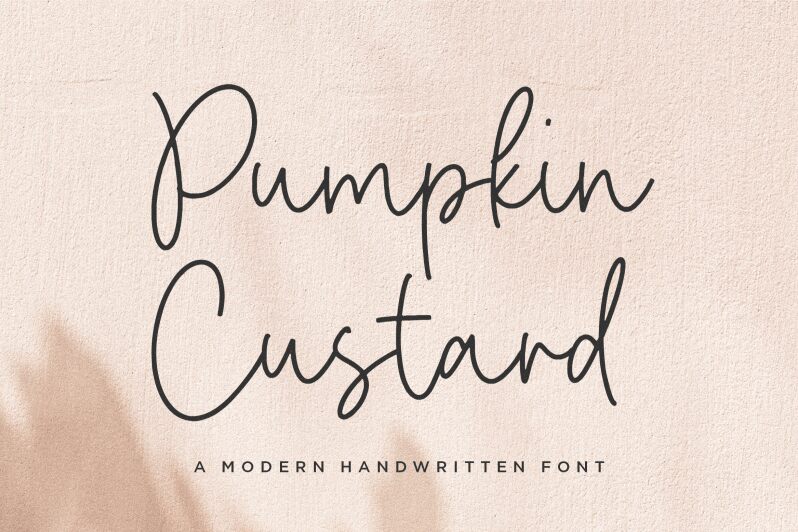
Pumpkin Custard
Pumpkin Custard, a creation by Letterative Studio, exudes a delicate charm with its light, handwritten style that seems to dance across the page. This font captures the warmth of personal correspondence and the nostalgia of ink on paper. Its fluidity suggests elegance and a touch of whimsy, while its gentle strokes convey an inviting softness.
In design contexts, Pumpkin Custard is particularly suited for invitations, greeting cards, and branding projects that benefit from a personal touch. It also lends itself beautifully to literary works and packaging where an intimate, handcrafted feel is desired. This font's airy grace makes it perfect for designs that aim to evoke tenderness and artistry.